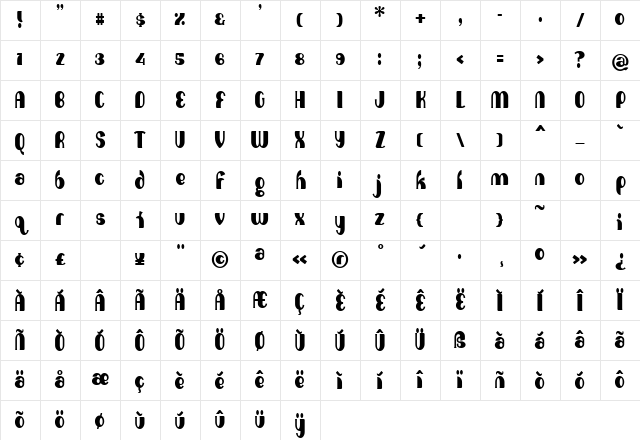
Complete Absolution Regular glyph index. Displaying only characters natively supported by Absolution Regular font.
Absolution is a composed and adaptable typeface that performs quietly and consistently across a wide range of design contexts.